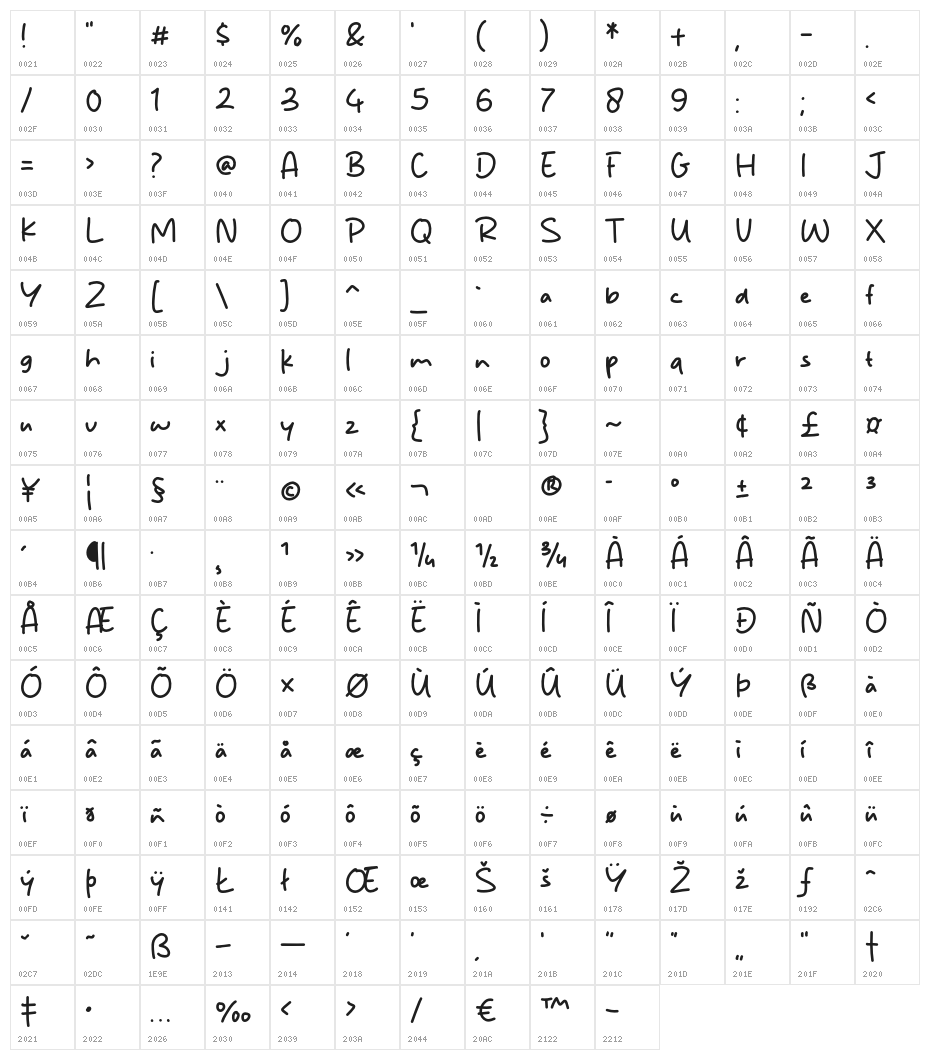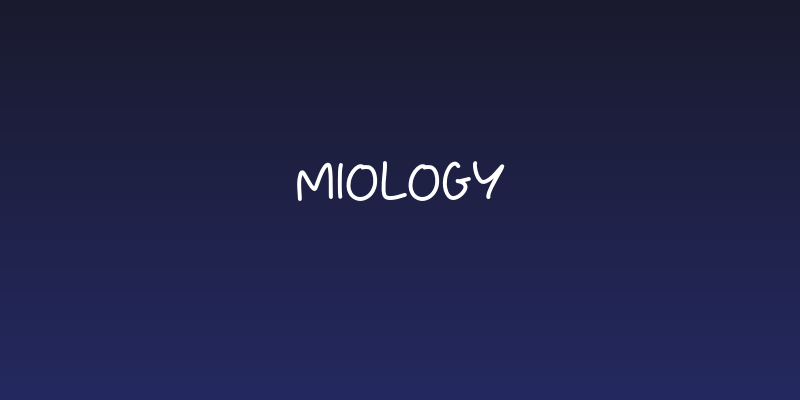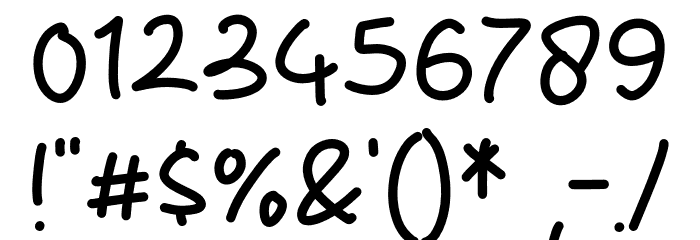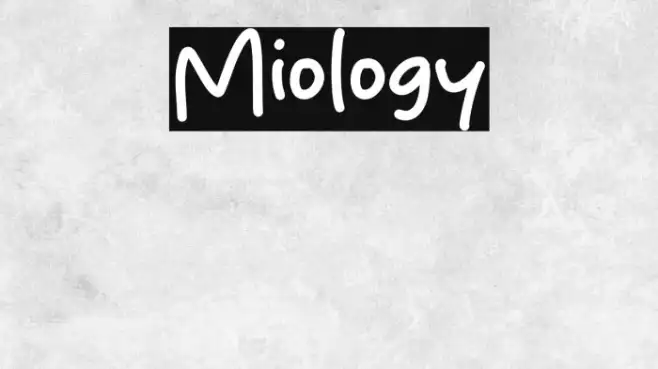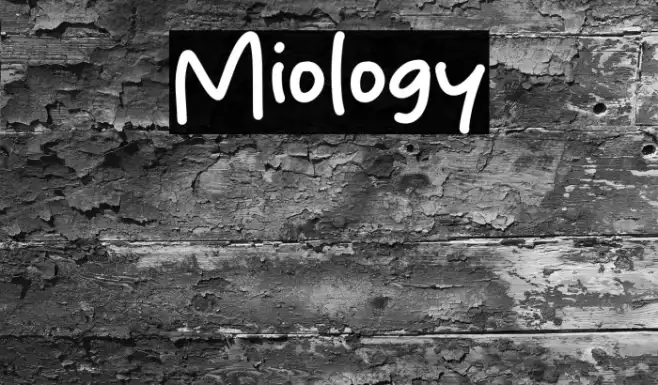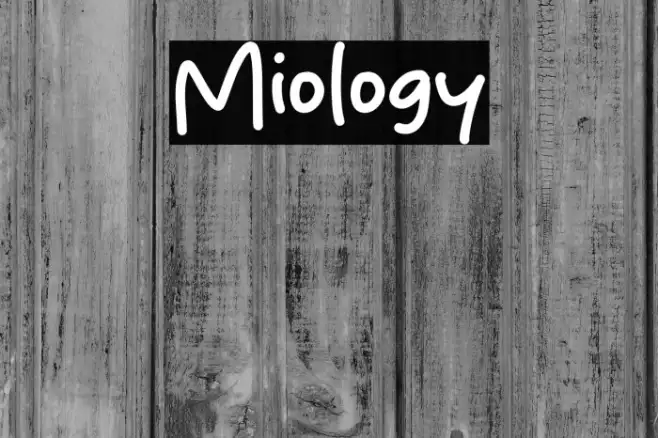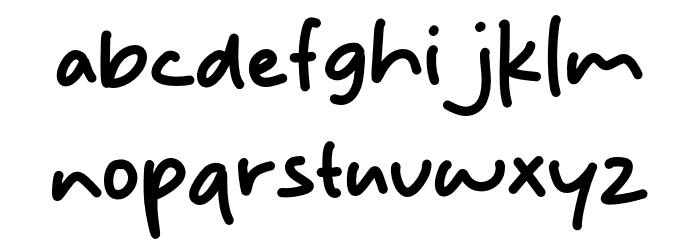
Miology Font
Miology Description
This font features a casual, handwritten style with smooth, rounded edges and a playful appearance. The letters are slightly irregular, giving it a natural, organic feel. The uppercase and lowercase letters maintain a consistent flow, while the numbers and special characters are designed to complement the overall aesthetic. The strokes are moderately thick, providing good readability without sacrificing the informal charm. This font is versatile, suitable for projects that require a personal touch or a relaxed vibe.
| Overall Style | Casual |
| Use Case | Headlines, Informal text, Personal projects |
| Proposed Projects | Ideal for greeting cards, personal blogs, children's books, and casual branding. |